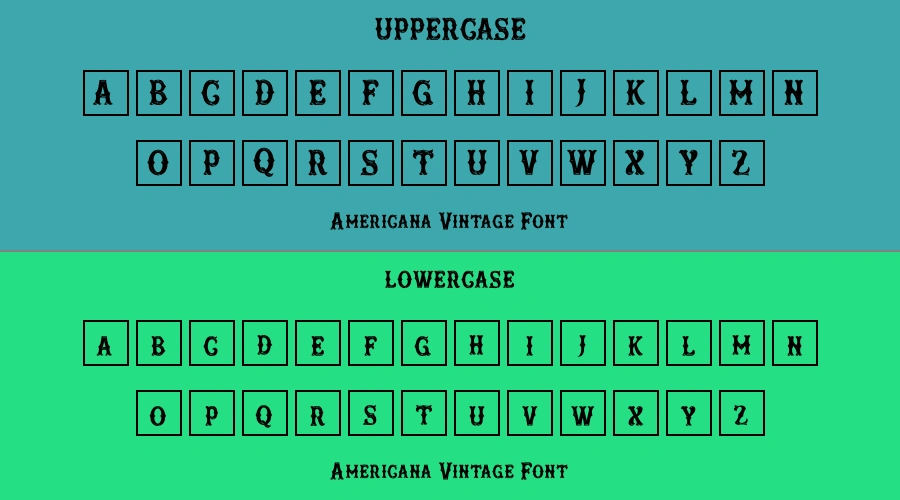
About Americana Vintage Font
Designed with precision, Americana Vintage Font merges flared stems with craftsmanship in every character. This versatility makes it particularly effective for print publications, where versatility and manufacturing quality directly impact communication quality. Each letterform demonstrates meticulous craftsmanship.
Technical excellence shines through elements like consistent rhythm and small caps, enhancing typographic versatility. In captions settings, Americana Vintage Font proves its worth through superior readability. The thoughtful execution of letterfit and market positioning ensures professional results.
Americana Vintage Font |